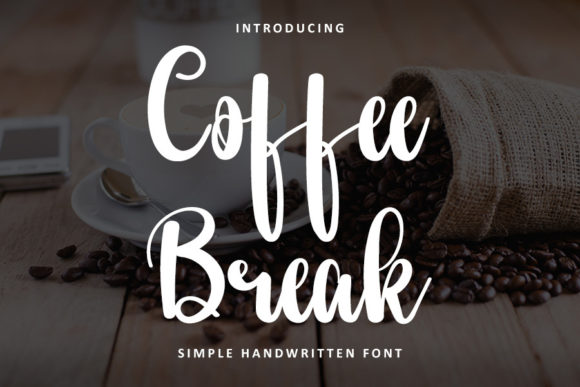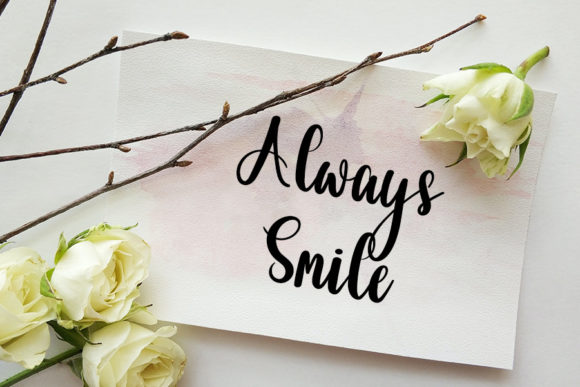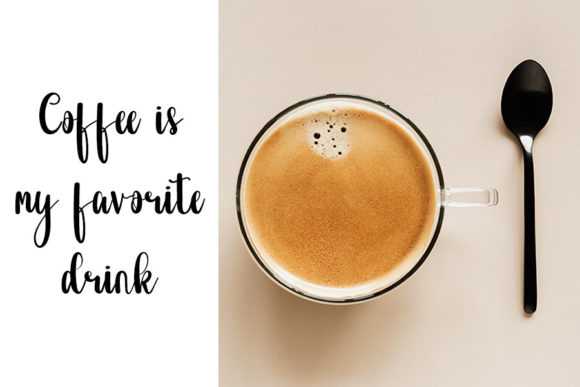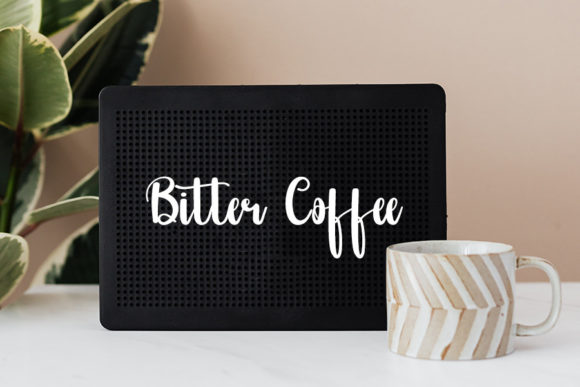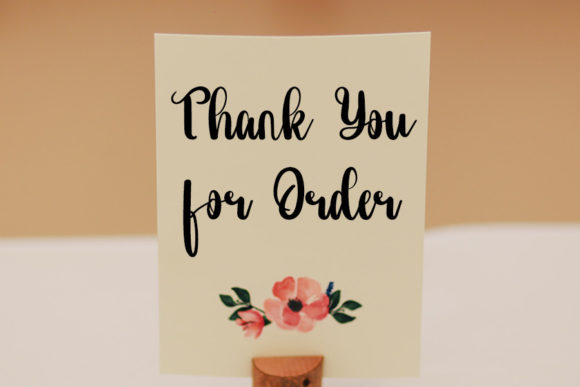
About Coffee Break Font
Coffee Break is a stylish handwritten font that exudes a contemporary atmosphere and impeccable form, drawing inspiration from timeless classic calligraphy. Crafted with a balanced and varied design, this font was intentionally created to elevate the beauty of your projects, adding a touch of sophistication and style.
The contemporary atmosphere of Coffee Break makes it well-suited for a variety of applications, offering a modern and stylish aesthetic. Whether utilized in cafe signage, coffee-related branding, invitations, or any creative project, this font contributes to a visually pleasing and refined presentation.
Impeccable form is a standout feature of Coffee Break, ensuring that each character is meticulously crafted to achieve a harmonious and refined look. The font’s inspiration from timeless classic calligraphy adds a sense of tradition and enduring beauty, making it versatile for both classic and contemporary design contexts.
In cafe signage and coffee-related branding, Coffee Break brings a stylish and authentic flair, capturing the essence of a sophisticated coffee experience. The handwritten charm of the font adds a personal touch, making signage and branding more memorable and inviting.
For invitations and creative projects, Coffee Break’s balanced and varied design enhances the overall aesthetic. The font adapts seamlessly to different themes, creating a visually appealing and harmonious design that resonates with a sense of elegance.
In summary, Coffee Break is more than just a font; it’s a stylish handwritten design tool that enhances the beauty of your projects. Whether applied to cafe signage, branding, invitations, or various creative endeavors, Coffee Break brings a touch of timeless classic calligraphy, elevating your designs with sophistication and charm.